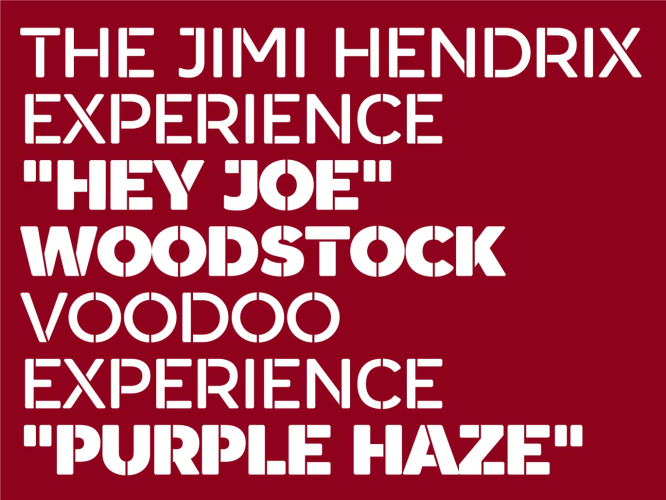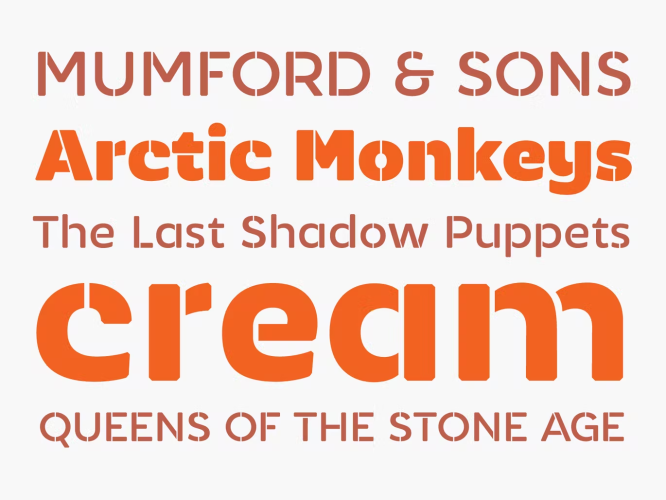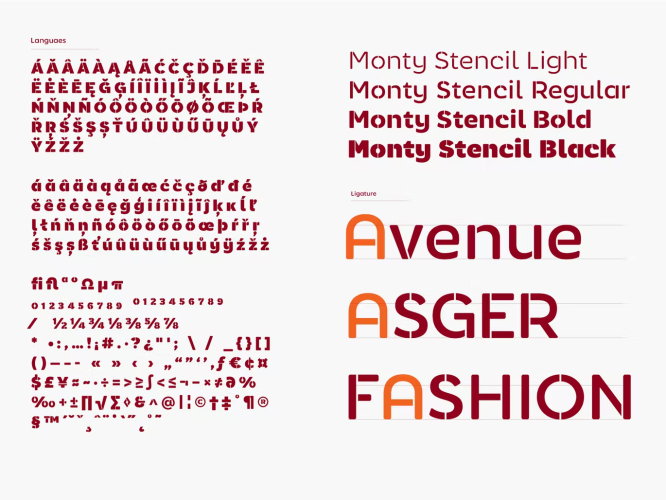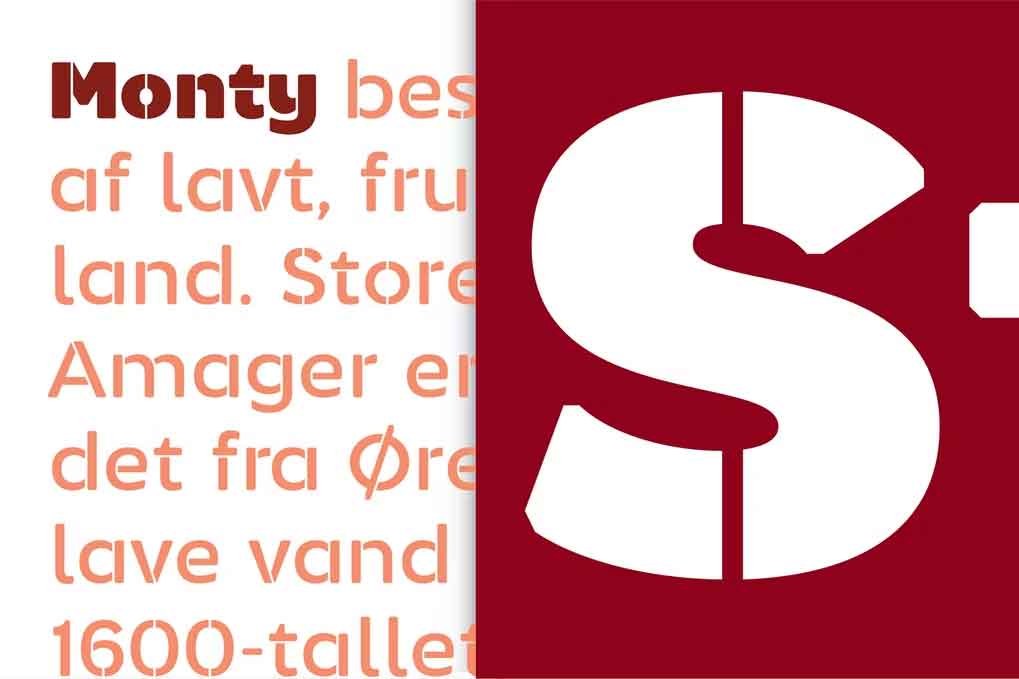
Monty Stencil Font
Monty Stencil is a new font family characterized as grotesque sans serif. The dynamics of the stencil letters G, K and A adds an additional sharpening and a heavy rounde…
Monty Stencil is a new font family characterized as grotesque sans serif. The dynamics of the stencil letters G, K and A adds an additional sharpening and a heavy rounded softness to all of scripture and provide extra versatility, which makes Monty an excellent tool for a variety of purposes, from signage, posters, posters for branding and editorial design. The font is designed for various use. Set it to task for marketing, packaging, editorial work, branding and even projects on the screen.
Where Monty Stencil Font works best
Monty Stencil Font stays legible at small sizes, which makes it a strong choice for navigation, buttons and dashboards in web design and app interfaces.
Clean sans serifs like Monty Stencil Font are the default language of SaaS, fintech and product branding.
What is Monty Stencil Font good for?